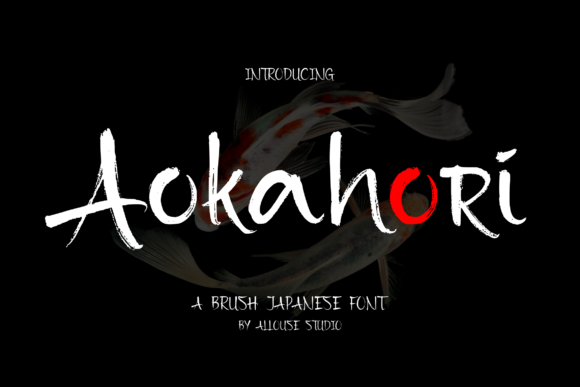
The Aokahori Font: A Brush Japanese Font for Creative Expression
I’ll never forget the moment I stumbled upon the Aokahori font while working on a branding project for a Japanese-inspired tea company. I was struggling to find the perfect font that would capture the essence of traditional Japanese culture while also being modern and elegant. That’s when I discovered Aokahori, a beautiful brush Japanese font that exceeded my expectations.
An Honest Review of Aokahori Font
What I Love About Aokahori ✨
• 💫 Unique brush strokes and imperfections that give it a handcrafted feel
• ✅ Wide range of characters, including kanji, hiragana, and katakana
• 🎨 Perfect for creative projects that require a touch of Japanese culture and elegance
• 📸 Versatile and can be used for product packaging, branding, magazines, social media, and weddings
While Aokahori is an amazing font, there are a few things to keep in mind:
• 🤔 Some characters may not be suitable for body text due to their decorative nature
• ⚠️ Limited availability of font weights, which may limit its use in certain design projects
The Designer Inspiration Behind Aokahori
The Aokahori font was inspired by traditional Japanese calligraphy and brush painting. Its creator aimed to create a font that would capture the essence of Japanese culture while also being modern and elegant. The result is a beautiful brush Japanese font that’s perfect for creative projects.
Q: What type of projects is Aokahori suitable for?
A: Aokahori is perfect for product packaging, branding projects, magazines, social media, weddings, or just used to express words above the background.
Q: Is Aokahori a difficult font to use?
A: No, Aokahori is relatively easy to use, especially for those familiar with typography and design software. You can easily access OpenType features and glyphs in most design platforms.